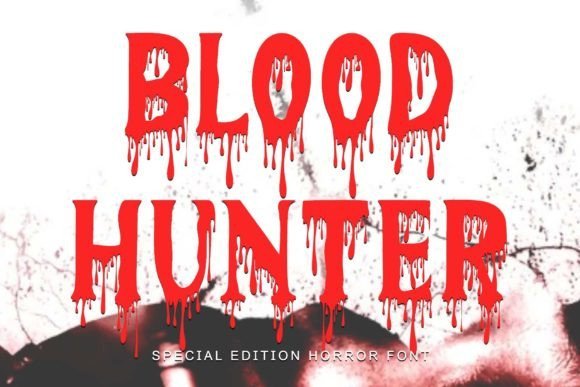
The Perfect Font for Your Dark Creations
Have you ever sat at your desk, staring at a blank page, and suddenly felt a surge of creativity as a spooky idea strikes? Maybe it’s the time of year, or maybe it’s just the darkness outside that’s inspiring you. Whatever the reason, we’re guessing that you’re about to create something truly terrifying – and you need the perfect font to bring it to life.
Enter the Blood Hunter Font, a special edition font that’s dripping with horror. This unique font features melted blood on each letter, adding an eerie touch to any design. With its comprehensive set of characters, including uppercase, lowercase, numerals, and punctuation, the Blood Hunter Font is perfect for designers looking to create a chilling atmosphere.
Blood Hunter Font Key Features
- Font Style: A horror-themed, sans-serif font with a distressed, bloody effect.
- Unique Characteristics: The font features a unique blend of horror-themed symbols and characters, including skulls, bones, and blood splatters, adding an eerie effect to any text.
- Character Set: Includes a wide range of characters, including uppercase and lowercase letters, numbers, and punctuation marks, as well as additional symbols and icons.
Blood Hunter Font Review
Overall, I’m quite impressed with the Blood Hunter Font. It has a unique, gothic vibe that works well for titles, headings, and even some body text ✨. The font’s irregularities and imperfections give it a sense of character that’s hard to find in more generic fonts.
- Unique aesthetic**: Blood Hunter Font has a distinct, horror-inspired look that’s perfect for projects with a dark or eerie theme.
- High contrast**: The font’s bold lines and high contrast work well for readability, especially in larger sizes.
- Customization options**: The font comes with a range of styles, from light to bold, giving you flexibility in your design choices.
However, there are some limitations to consider ⚠️:
- Limited legibility in small sizes**: While the font looks great in larger sizes, it can be difficult to read in smaller text sizes.
- Not ideal for body text**: Due to its unique style and high contrast, Blood Hunter Font may not be the best choice for large blocks of body text.
Overall, I think Blood Hunter Font is a great addition to any designer’s toolkit. While it may have some limitations, its unique aesthetic and customization options make it a great choice for projects that need a little extra flair.
Tips for Getting the Most Out of the Blood Hunter Font
Use the Blood Hunter Font for horror-themed designs, such as posters, flyers, and invitations.
Combine the font with dark colors and eerie imagery to create a spooky atmosphere.
Experiment with different font sizes and styles to add emphasis and create visual interest.
The Blood Hunter Font is ideal for:
Horror movie posters
Spooky event invitations
Dark-themed social media graphics
Alternatives to Blood Hunter Font
Fontin is a modern sans-serif font that features clean lines and a minimalist design. It’s ideal for use in digital products, such as mobile apps and websites, where readability is crucial. Fontin has a more subtle feel compared to Blood Hunter Font, which makes it suitable for a wide range of applications.
Comparison: Fontin is more subdued in its design and has a more neutral tone compared to Blood Hunter Font’s bold and edgy feel.
Audiowide
Audiowide is a futuristic sans-serif font that’s perfect for use in projects that require a high-tech or sci-fi aesthetic. It’s great for use in video games, futuristic websites, and other digital media where a bold and futuristic feel is desired. Audiowide has a similar edgy feel to Blood Hunter Font, but with a more futuristic twist.